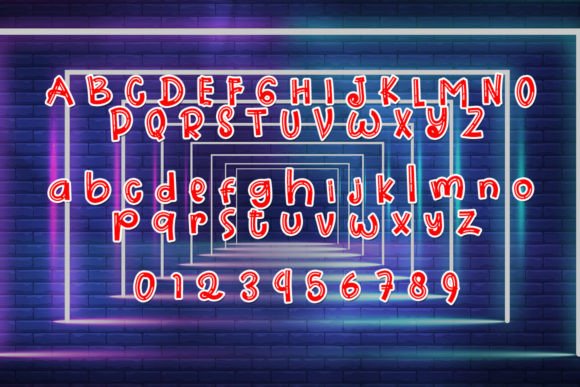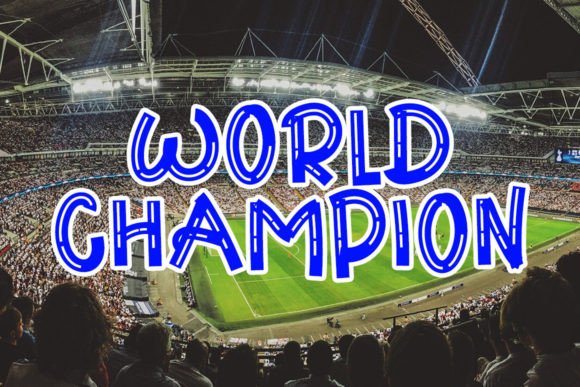
Introduction to Gringh Font
Gringh is a beautiful and sweet font.
It is fresh, clean, and elegant This font will look amazing in a great number of projects, both formal and informal.
Why Choose Gringh Font?
Gringh Font offers exceptional quality and versatility, making it a valuable addition to your design toolkit. Whether you’re creating for personal projects or commercial use, Gringh Font delivers professional results.